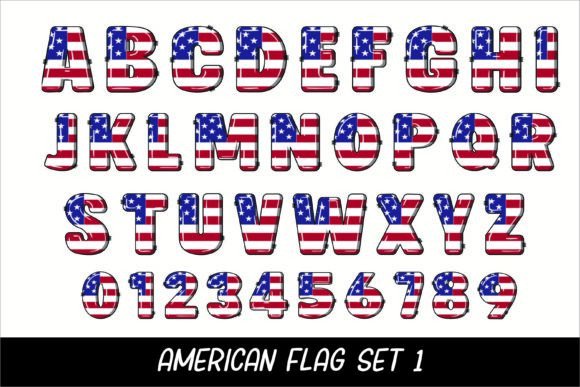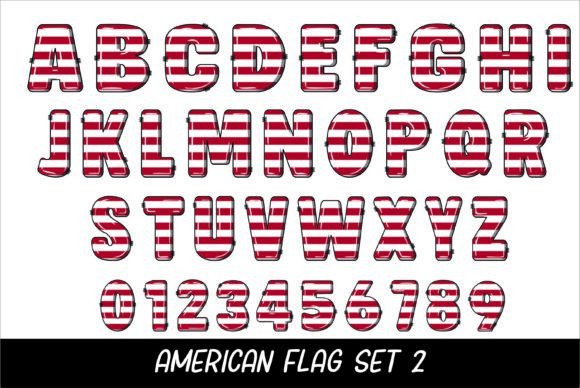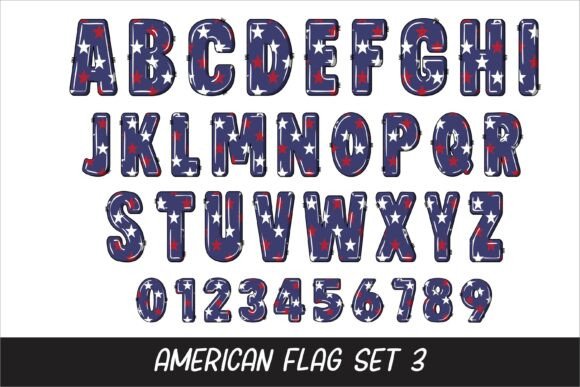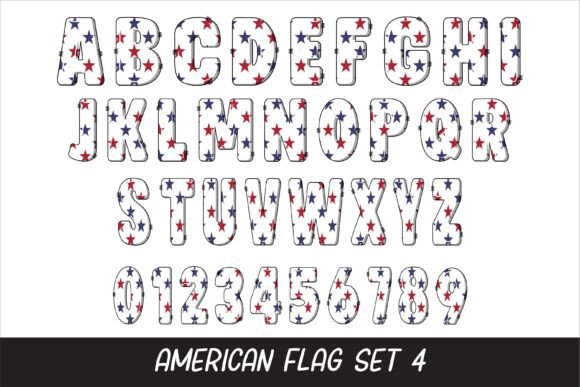
Unfurl the Spirit of America with the American Flag Font
As a designer, have you ever found yourself stuck in a creative rut, searching for the perfect element to add a touch of patriotism to your project? Maybe you’re working on a 4th of July-themed poster or designing a logo for a new American business. Whatever the case, you’re in luck because we’re about to introduce you to the American Flag Alphabet Color Font – a bold and vibrant addition that’s sure to evoke the spirit of freedom and pride.
This stunning font is more than just a design element; it’s a celebration of the American flag’s iconic colors and textures. With each letter beautifully filled with red, white, and blue elements, it’s the perfect way to add a touch of American flair to any project. Whether you’re a seasoned designer or a hobbyist, the American Flag Font is a valuable tool that’s sure to add some excitement to your work.
Key Features of American Flag Font
- Unique Characteristics: The font features a distinctive red, white, and blue color scheme, reminiscent of the American flag, and is often used to add a patriotic touch to designs.
Designer Review: American Flag Font
Overall, I found the American Flag Font to be a unique and interesting choice for patriotic designs. Here are some of the things that stood out to me:
- ✨ It’s a great conversation starter. The font’s bold and playful design is sure to grab attention and spark conversation.
- ✨ The font’s versatility allows it to be used in a variety of contexts, from casual designs to more formal ones.
- ✨ The font’s bold, red, white, and blue colors are instantly recognizable and evoke a sense of American pride.
- ⚠️ The font may be seen as too kitschy or over-the-top for some designs, which could detract from its effectiveness.
- ⚠️ The font’s bold design may not be suitable for smaller text sizes, where it may become difficult to read.
Overall, I think the American Flag Font is a fun and eye-catching choice for designs that require a bold, patriotic look. However, it may not be the best choice for every project, and designers should carefully consider its use and potential limitations.
Use the American Flag Font to add a patriotic touch to your designs. Pair it with red, white, and blue colors to create a cohesive look. Experiment with different font sizes and styles to achieve the desired effect.
The American Flag Font is commonly used for:
- Patriotic events and holidays
- Summer-themed designs
- Red, white, and blue color schemes
- Graphic design projects